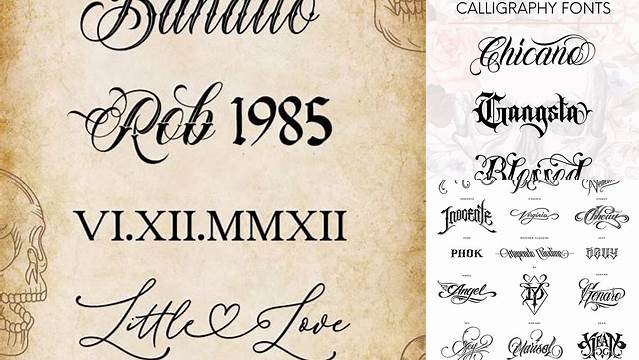
Tattoo Fonts: Bold Capital Letter Styles & Ideas
Introduction to Tattoo Lettering
When it comes to getting a tattoo, the design is crucial, and for many, lettering plays a significant role. Tattoo lettering is an art form in itself, requiring careful consideration of the font, size, placement, and overall style. Choosing the right tattoo fonts can make your tattoo stand out, conveying the message and style you desire. But before diving into the vast world of tattoo fonts capital letters, let's understand why they matter so much in the realm of body art.
Capital letters in tattoos are more than just a stylistic choice; they carry a certain weight and presence. They can project strength, formality, or a bold statement, making them ideal for single words, initials, or important dates. The impact of capital letters is undeniable, and they can significantly affect the overall aesthetic of your tattoo. However, not all fonts translate well into tattoos, especially when using capital letters. Some fonts may appear too cluttered or difficult to read when inked onto the skin, which is why selecting the perfect font is paramount.
The world of tattoo fonts is incredibly diverse, offering everything from classic and traditional styles to modern and script-based options. Each font has its own personality and conveys a different message. For example, a Gothic font in capital letters can give a tattoo a medieval or edgy feel, while a Roman font might convey a sense of timeless elegance. Understanding these nuances is key to making an informed decision. In this guide, we'll explore the most popular and effective tattoo fonts capital letters, providing insights into their unique characteristics and how they can be used to create stunning tattoos. We'll also discuss crucial factors to consider when choosing a font, ensuring your tattoo looks fantastic and stands the test of time. So, if you're thinking about getting a tattoo with capital letters, you've come to the right place. Let's dive into the captivating world of tattoo lettering and discover the perfect font for your next piece of body art.
Popular Tattoo Fonts in Capital Letters
Choosing the right font for your tattoo design is a crucial step, especially when you're focusing on capital letters. The impact of capital letters can be significant, but some fonts work better than others in tattoo form. Here, we'll explore some of the most popular and visually striking tattoo fonts in capital letters, delving into what makes each one unique and suitable for different styles and messages.
One classic choice that consistently ranks high in popularity is Gothic script. Gothic fonts, with their elaborate strokes and dramatic flair, exude a sense of timeless elegance and mystique. When rendered in capital letters, Gothic fonts can create a powerful visual statement, perfect for those who want their tattoos to convey strength and tradition. However, it's important to note that intricate Gothic fonts can be challenging for tattoo artists to execute precisely, and the fine details might blur over time. Therefore, choosing a simplified Gothic font or ensuring your artist has extensive experience with this style is crucial. Gothic capital letters are particularly well-suited for names, dates, or significant words that you want to highlight with a bold and ornate touch.
Another popular option is Roman lettering. Roman fonts are known for their clean lines, balanced proportions, and timeless appeal. Capital letters in Roman fonts project a sense of sophistication and historical significance, making them ideal for quotes, initials, or dates that require a classic touch. Fonts like Trajan and Times New Roman (in a modified form) fall into this category, offering a dignified and legible look. Roman capital letters are versatile and work well in various tattoo placements, from forearms and shoulders to the chest and back. Their clarity and simplicity ensure that the tattoo remains readable and impactful even from a distance.
For a more modern and edgy feel, Script fonts in capital letters can be a compelling choice. While script fonts are often associated with lowercase lettering, certain script styles can be adapted to capital letters for a unique and stylish effect. Calligraphy-inspired scripts, in particular, offer a fluid and artistic look, lending a personal and handcrafted feel to your tattoo. However, it's essential to choose a script font that remains legible when rendered in capital letters, as some script styles can become overly ornate and difficult to read. A skilled tattoo artist can help you select a script font that balances elegance with clarity, ensuring your tattoo looks both beautiful and meaningful. Script capital letters are fantastic for names, meaningful words, or short phrases that you want to express with a touch of artistic flair.
In addition to these, there are numerous other tattoo fonts that work exceptionally well in capital letters. Old English fonts, with their distinctive and historical charm, are a popular choice for those seeking a traditional and bold look. Sans-serif fonts, like Arial or Helvetica, offer a clean and modern aesthetic, perfect for minimalist designs or technical themes. Each font has its unique personality, and exploring different options is key to finding the one that best reflects your style and the message you want to convey. Remember to consider the size, placement, and overall design of your tattoo when selecting a font, as these factors can significantly impact the final result. Working closely with your tattoo artist is essential, as they can provide valuable guidance and ensure your chosen font is executed flawlessly.
Factors to Consider When Choosing a Font
Choosing the right font for your tattoo is a critical decision that can significantly impact the final look and feel of your body art. With a myriad of options available, from bold Gothic scripts to elegant Roman letters, it's essential to consider several factors to ensure your tattoo not only looks fantastic but also stands the test of time. When focusing on tattoo fonts capital letters, the considerations become even more crucial, as the impact and legibility of capital letters can vary significantly across different fonts. Let's dive into the key factors you should keep in mind.
Legibility is paramount when selecting a font for your tattoo. A beautifully designed font is worthless if it cannot be easily read. This is particularly important for capital letters, which, in some fonts, can appear cluttered or confusing when placed close together. Intricate fonts like certain Gothic styles might look stunning on paper but can become a blurred mess on the skin, especially over time as the ink spreads. Opt for fonts with clear, well-defined letterforms that maintain their shape and readability even when scaled down. Consider the spacing between letters and words, ensuring there's enough room for the ink to settle without compromising clarity. Always view a sample of the font in the desired size and placement before making a final decision. Your tattoo artist can provide valuable insights into which fonts are most legible and suitable for the chosen area of your body.
The size and placement of your tattoo are closely intertwined with font selection. A large tattoo on a flat surface, like the back or chest, can accommodate more intricate fonts and detailed capital letters. However, smaller tattoos or those placed on curved areas, such as the wrist or ankle, require simpler, more legible fonts. Overly ornate capital letters in a small tattoo can quickly become illegible, turning your carefully chosen words into an indistinguishable blob of ink. Consider the contours of your body and how the font will wrap around them. A font that looks great on a flat surface might appear distorted when applied to a curved area. Work closely with your tattoo artist to determine the optimal size and placement for your tattoo, and choose a font that complements these factors.
Longevity is another crucial aspect to consider. Tattoos are a permanent form of art, and the way a font ages over time can significantly impact its appearance. Fine lines and intricate details are more prone to fading or blurring as the ink settles and the skin ages. Bold, well-defined fonts with ample spacing between letters tend to hold up better over the years. Avoid trendy or overly delicate fonts that might lose their definition over time. Choose a font that is classic and timeless, ensuring your tattoo looks as good in the future as it does on the day you get it. Your tattoo artist can advise you on which fonts are known for their longevity and can help you make a choice that will stand the test of time. Capital letters, due to their bold nature, generally age well, but the specific font and its execution are still vital considerations.
Finally, personal style and message should be at the heart of your font selection. The font you choose should reflect your personality and the message you want to convey. A Gothic font in capital letters might be perfect for someone seeking a bold and dramatic statement, while a Roman font might better suit those aiming for a classic and timeless feel. Consider the overall aesthetic you want to achieve and choose a font that aligns with it. The font should complement the other elements of your tattoo design, creating a cohesive and meaningful piece of art. Don't be afraid to explore different options and experiment with various fonts until you find the one that truly resonates with you. Your tattoo is a personal expression, and the font you choose should reflect that. By carefully considering these factors, you can select a tattoo font in capital letters that not only looks stunning but also remains legible, timeless, and true to your individual style.
Tips for Designing Tattoos with Capital Letters
Designing a tattoo with capital letters can be a powerful way to make a statement, but it requires careful consideration and planning. Capital letters, with their bold presence and strong visual impact, can be incredibly effective in conveying your message, whether it's a single word, a name, a date, or a meaningful phrase. However, simply choosing a font and slapping it onto your skin isn't enough. To create a truly stunning tattoo with capital letters, you need to think about the design as a whole. Here are some essential tips to help you design a tattoo that not only looks great but also holds up well over time.
Prioritize readability. This cannot be stressed enough. While a font might look amazing on a screen or a piece of paper, it's a different story when it's inked onto the skin. Intricate and overly stylized fonts, especially when rendered in capital letters, can quickly become a jumbled mess. Choose a font that is clear, clean, and easily legible, even from a distance. Remember, tattoos are permanent, and you want your message to be understood for years to come. Test out the font in various sizes and placements to see how it looks on the skin. A good rule of thumb is to simplify rather than complicate. Opt for fonts with well-defined letterforms and ample spacing between letters to ensure maximum readability. Capital letters, while bold, can lose their impact if they're crammed together or too ornate. Your tattoo artist can provide invaluable advice on which fonts are most readable and how they will age over time.
Consider the placement on your body. The location of your tattoo plays a significant role in how the font will appear. Areas with more skin and fewer curves, such as the back or chest, can accommodate larger and more detailed capital letters. However, smaller areas like the wrist, ankle, or fingers require simpler fonts and a more concise design. The curves and contours of your body can distort the appearance of the font, so it's crucial to choose a font that will look good in your chosen location. Wrap-around tattoos, for example, need fonts that maintain their legibility even when viewed from different angles. Think about how the tattoo will move with your body and choose a font that complements your anatomy. Capital letters in a straight line on a flat surface will appear different on a curved area, so consider this when making your font selection and placement decisions. Working closely with your tattoo artist will help ensure that your design looks balanced and harmonious on your body.
Think about the size and spacing of the letters. The size of your capital letters should be proportionate to the area you're tattooing. Overly large letters can overwhelm a small area, while letters that are too small might be difficult to read. Spacing is equally important. Adequate space between letters prevents them from blurring together, which is particularly crucial for intricate fonts. Consider the overall composition of your tattoo and how the capital letters fit within the design. If you're incorporating other elements, such as images or symbols, make sure the font size and spacing complement these elements without overpowering them. A well-balanced tattoo design is visually appealing and ensures that each component, including the capital letters, stands out in the right way. Experiment with different sizes and spacing options to find the perfect balance for your tattoo. Your tattoo artist can offer expert guidance on how to optimize the size and spacing for maximum impact and legibility.
Finally, choose a font that reflects your personal style. Your tattoo is a form of self-expression, and the font you choose should align with your personality and the message you want to convey. Are you aiming for a classic and timeless look? A bold and edgy statement? Or something more elegant and artistic? There are countless fonts available, each with its unique character and appeal. Explore different styles, from Gothic and Roman to script and sans-serif, until you find the one that truly resonates with you. Capital letters can add a sense of formality and strength to your tattoo, but the specific font you choose will ultimately determine the overall tone and style. Don't rush the decision-making process. Take your time to research and experiment with different fonts. Your tattoo artist can provide valuable insights into which fonts are popular, durable, and suitable for your style and design. By following these tips, you can design a tattoo with tattoo fonts capital letters that is not only visually stunning but also meaningful and enduring.
Conclusion: Making the Right Choice for Your Tattoo
Choosing the right tattoo fonts for your ink is a significant decision, especially when you're focusing on tattoo fonts capital letters. As we've explored, capital letters carry a certain weight and presence, making them a powerful choice for expressing meaningful words, names, or dates. However, the world of tattoo lettering is vast and varied, and navigating it successfully requires careful consideration and planning. By understanding the nuances of different fonts, considering factors like legibility, size, placement, and longevity, and aligning your choice with your personal style and message, you can ensure your tattoo looks fantastic and stands the test of time.
Throughout this guide, we've delved into some of the most popular and effective capital letter fonts for tattoos. Gothic scripts offer a timeless elegance and mystique, perfect for those seeking a bold and traditional look. Roman fonts, with their clean lines and balanced proportions, exude sophistication and historical significance, ideal for quotes, initials, or dates that require a classic touch. Script fonts, when adapted to capital letters, can lend a unique and artistic flair, adding a personal and handcrafted feel to your tattoo. Beyond these, there are countless other fonts to explore, from Old English to sans-serif, each with its distinctive character and appeal.
Remember, the key to a successful tattoo lies not just in the font itself but also in how it's executed. Legibility is paramount, and choosing a font that remains clear and readable over time is crucial. The size and placement of your tattoo must complement the font, ensuring that the letters don't appear cluttered or distorted. Longevity is another critical factor; opting for fonts with bold, well-defined letterforms and ample spacing will help prevent fading or blurring as the ink settles and the skin ages.
Designing a tattoo with capital letters is a collaborative process. Your tattoo artist is your partner in this journey, and their expertise is invaluable. They can provide insights into which fonts work best for your chosen placement, how the ink will settle over time, and what adjustments might be necessary to achieve the desired look. Don't hesitate to discuss your ideas and concerns with your artist. Their experience and artistic eye can help you refine your design and ensure a stunning final result.
Ultimately, the right tattoo font in capital letters is the one that resonates with you on a personal level. It's a font that speaks to your style, reflects your message, and makes you feel confident and proud. Your tattoo is a permanent form of self-expression, and the font you choose is a crucial element of that expression. So, take your time, explore your options, and make an informed decision. With careful planning and the guidance of a skilled artist, you can create a tattoo that not only looks beautiful but also holds deep meaning for years to come. Whether you opt for a classic Gothic script, a timeless Roman font, or a unique and artistic style, your tattoo will be a testament to your individuality and a lasting piece of art.